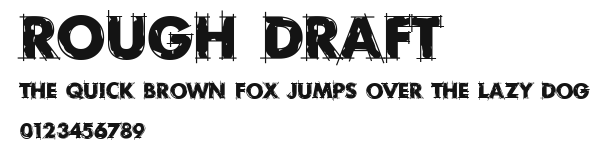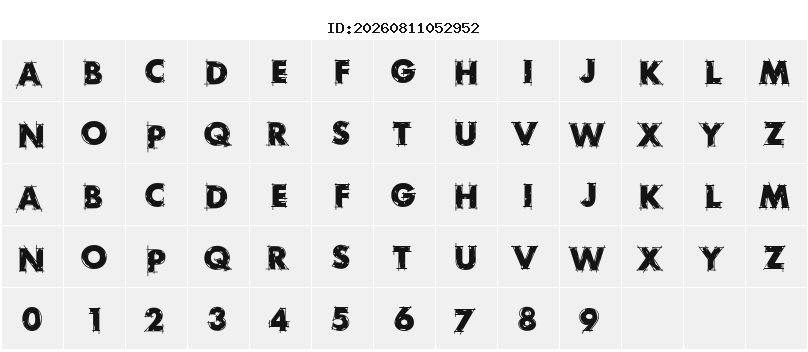
• Font Name: Rough Draft
• Full Font Name: Rough Draft
About Rough Draft.ttf
Rough Draft.ttf is a modern, elegant sans-serif font designed for ultimate readability and visual harmony. Perfect for branding, headlines, web design, and print materials.